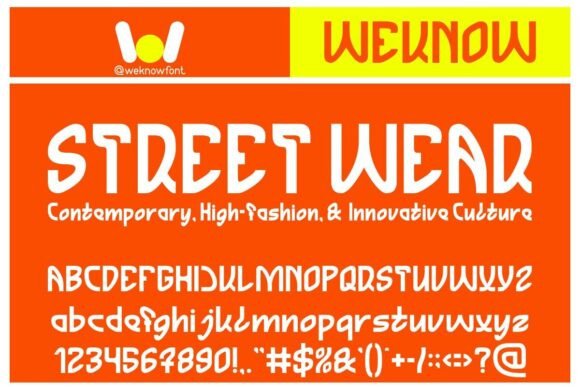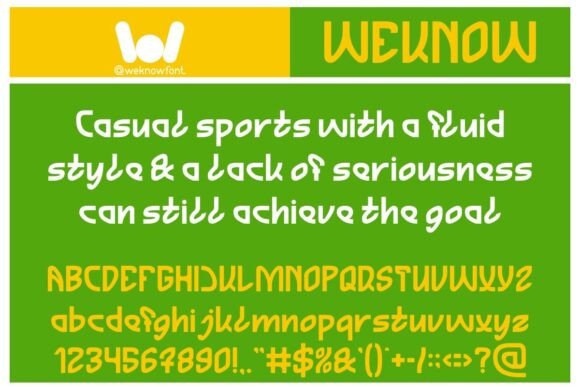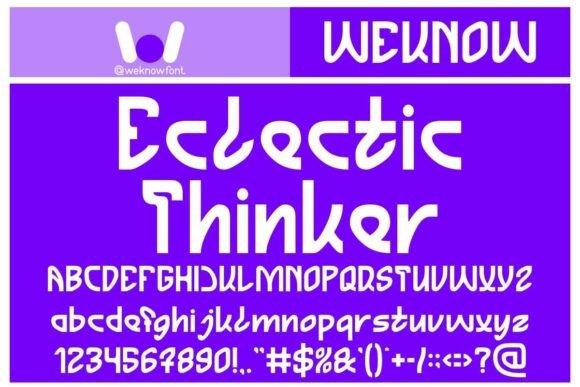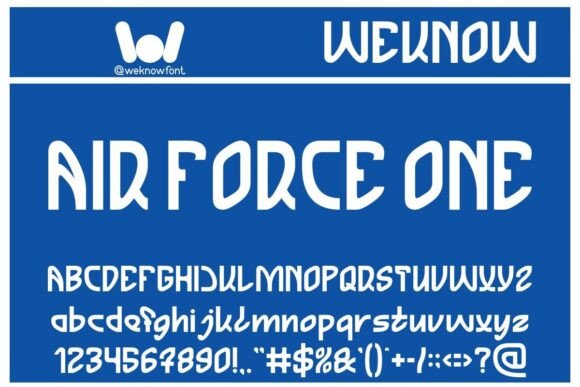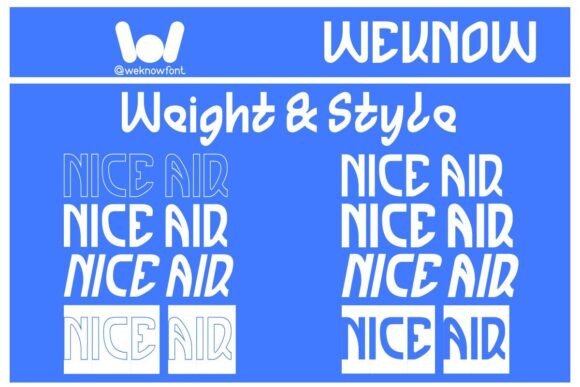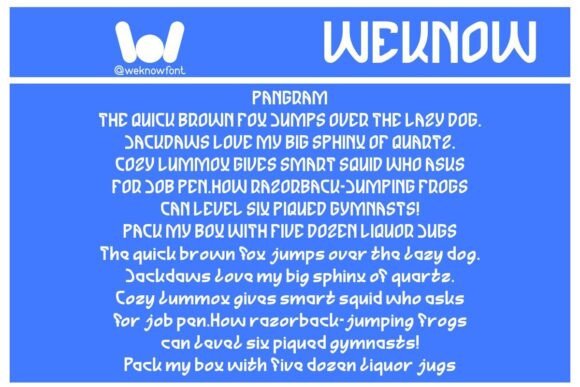
Introduction to Nice Air Font
You’ve spent hours perfecting the layout of your latest design project, but something’s still missing. The perfect font can make all the difference, and that’s where Nice Air Font comes in – a game-changing display font that’s sure to elevate your creative vision.
Imagine unleashing a breath of fresh air into your design work, infusing it with a unique blend of playfulness, versatility, and cutting-edge style. With Nice Air Font, you can do just that. This high-quality, free download is more than just a design resource – it’s a key to unlocking your full creative potential.
Whether you’re a seasoned designer or just starting out, Nice Air Font is an invaluable addition to your toolkit. Its transparent background and dynamic appeal make it the perfect choice for a wide range of applications, from logos and logotypes to headlines and body text. Get ready to take your design projects to the next level with Nice Air Font.
Key Features of Nice Air Font
- High-quality design resource with a transparent background, ideal for creative projects.
- Designed to be versatile and suitable for a wide range of applications, from digital to print media.
- Unique characteristics include a clean, modern aesthetic and a range of subtle nuances in letterform design.
- Perfect for designers and artists looking for a high-quality, professional font for their creative projects.
Honest Review: Nice Air Font
I recently had the chance to work with the Nice Air Font for a creative project and I must say it was a pleasant experience. The font is a great design resource for anyone looking for a high-quality sans-serif font.
- ✨ The font has a transparent background, making it easy to customize and use with any design.
- ✨ The font is highly legible, making it perfect for body text and headings.
- ⚠️ The font does not include a lot of variations, so you may need to get creative with customizations.
Overall, I was impressed with the Nice Air Font. It’s a great option for designers looking for a high-quality, free font. While it may have some limitations, the font is well-designed and easy to use. I would definitely consider using it again for a future project.
Nice Air Font
Using Nice Air Font in Design Projects
Tips for Getting the Most Out of Nice Air Font
For best results, use Nice Air Font in combination with other high-quality design resources. Experiment with different font sizes, colors, and combinations to achieve a unique and visually appealing design. Additionally, consider using Nice Air Font with a transparent background to create a clean and modern look.
Common Use Cases for Nice Air Font
Nice Air Font is ideal for creating graphics, presentations, and documents for business, education, and personal projects. Use it to add a touch of elegance and sophistication to your designs, and take advantage of its high-quality and transparent background features to create a professional-looking finish.
Does the Nice Air Font have a transparent background?
Yes, the Nice Air Font has a transparent background, making it ideal for designs that require a clean and minimalist look. The font’s transparent background allows you to easily layer it over other design elements or images without any visual clutter.